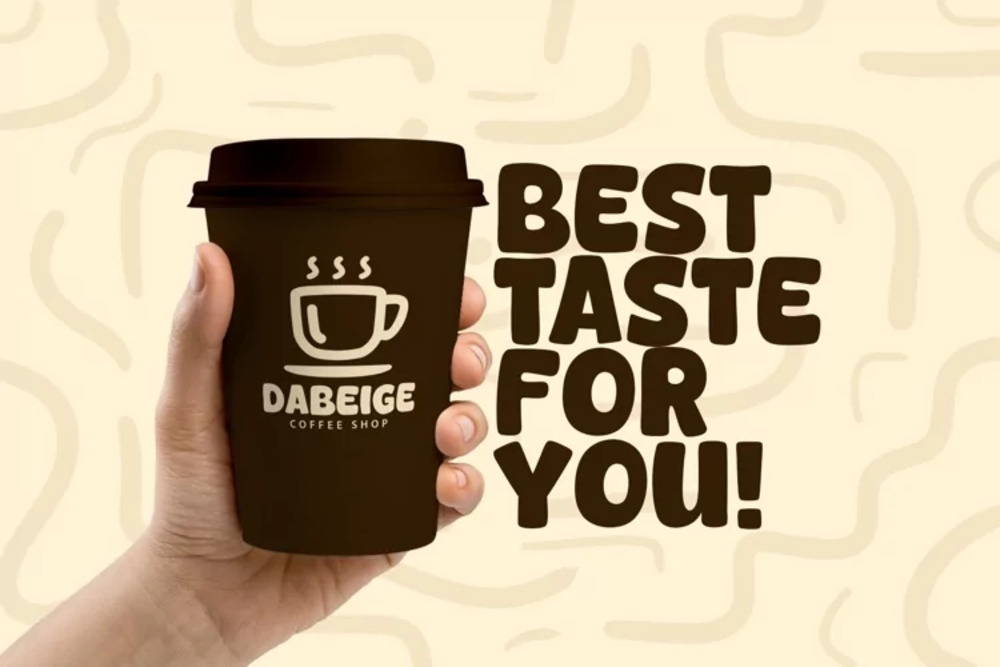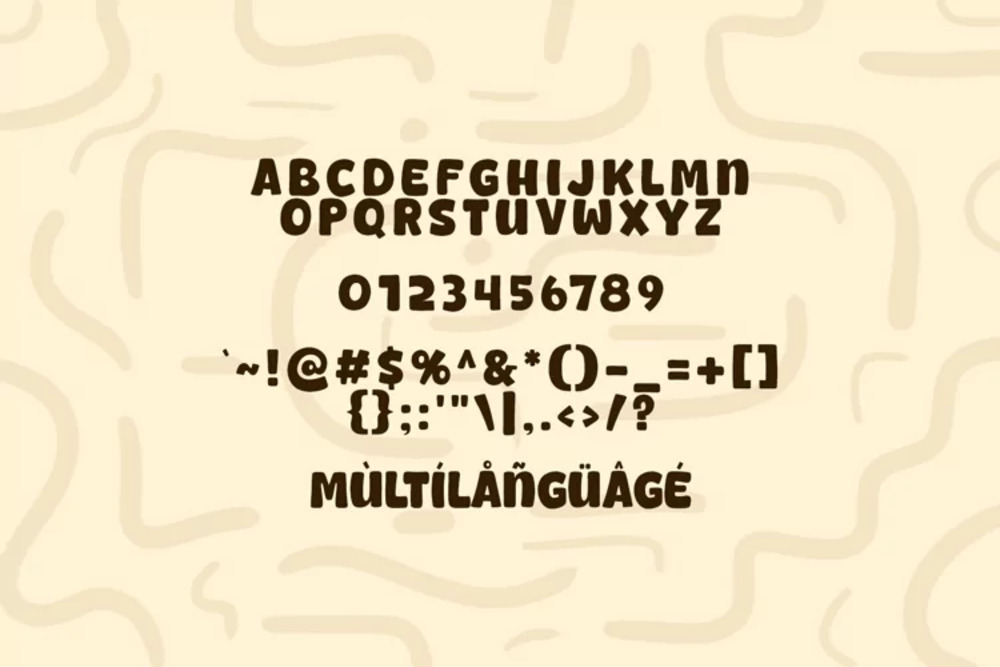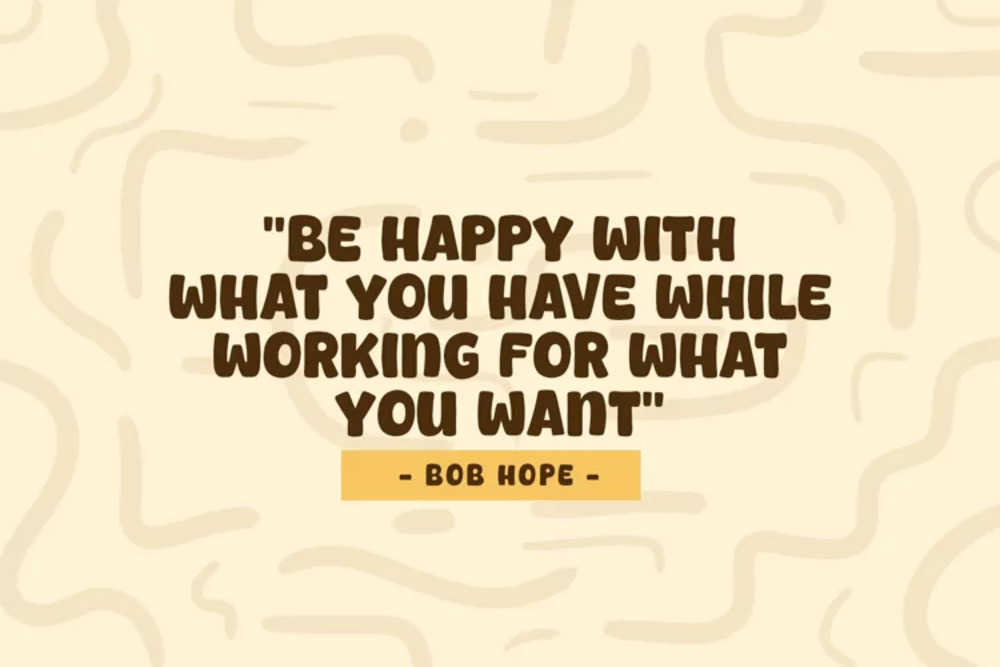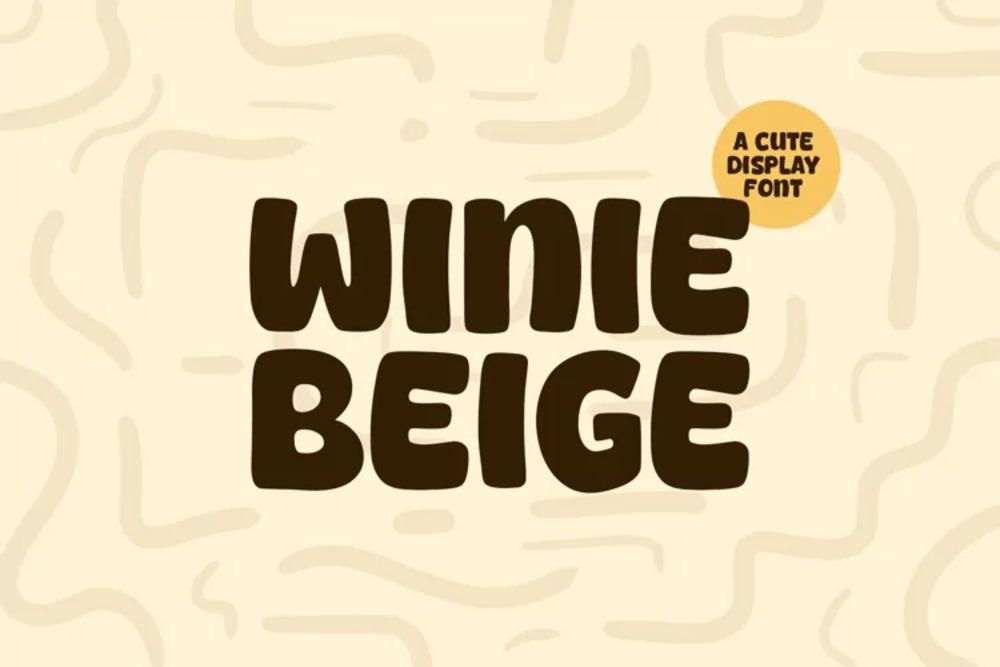
Winie Beige Font
Winie Beige is a soft and elegant serif font with a classic, timeless appeal. Its gentle curves and refined letterforms create a sense of understated sophistication and warmth. Perfect for branding, editorial design, wedding invitations, and projects that require a touch of graceful elegance. Winie Beige adds a touch of classic beauty and timeless charm.